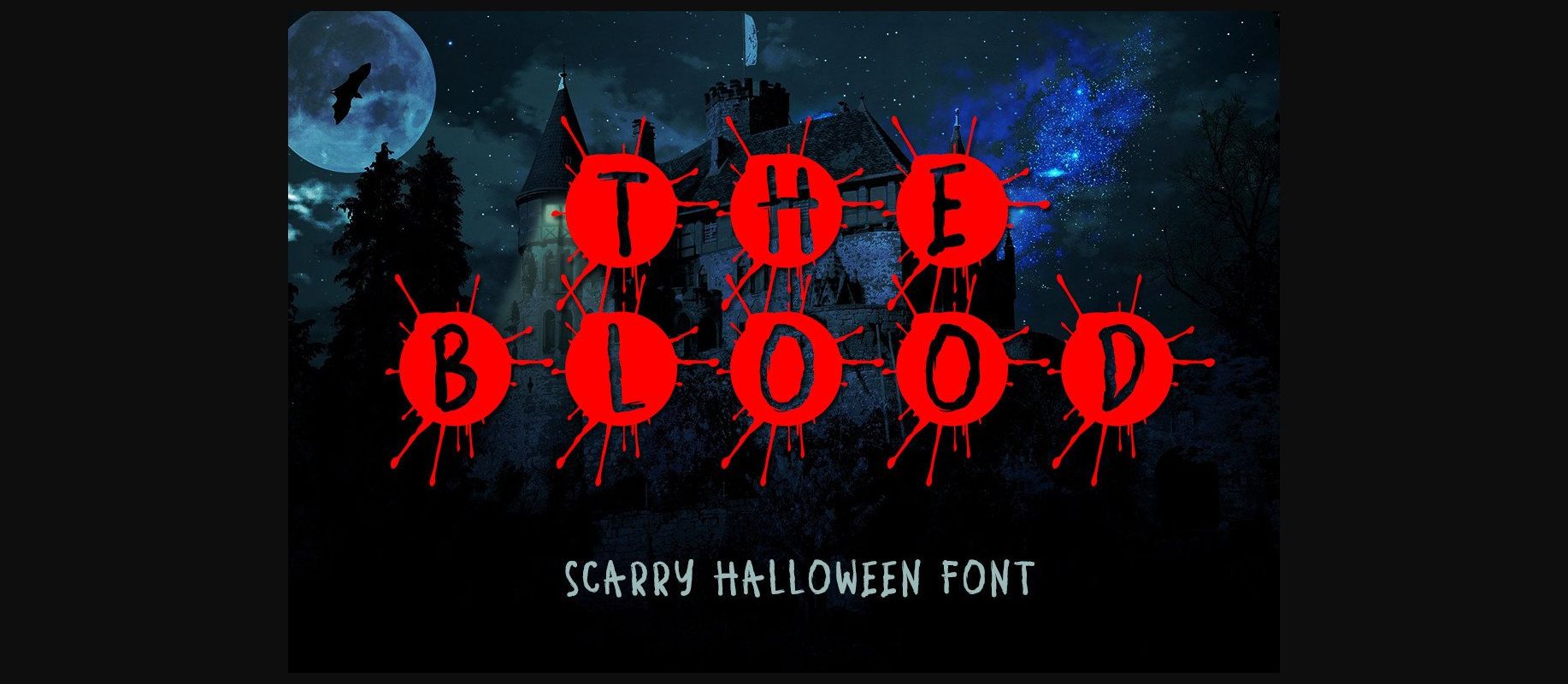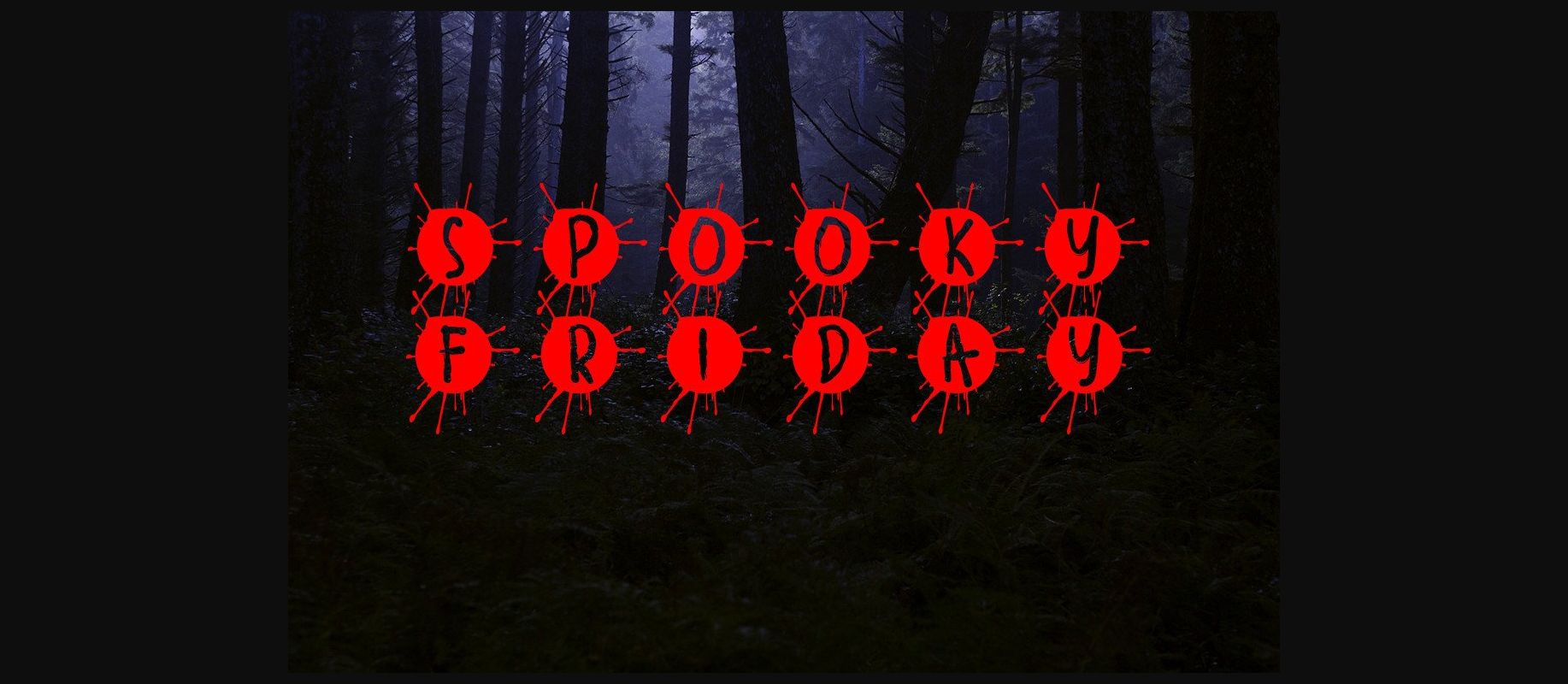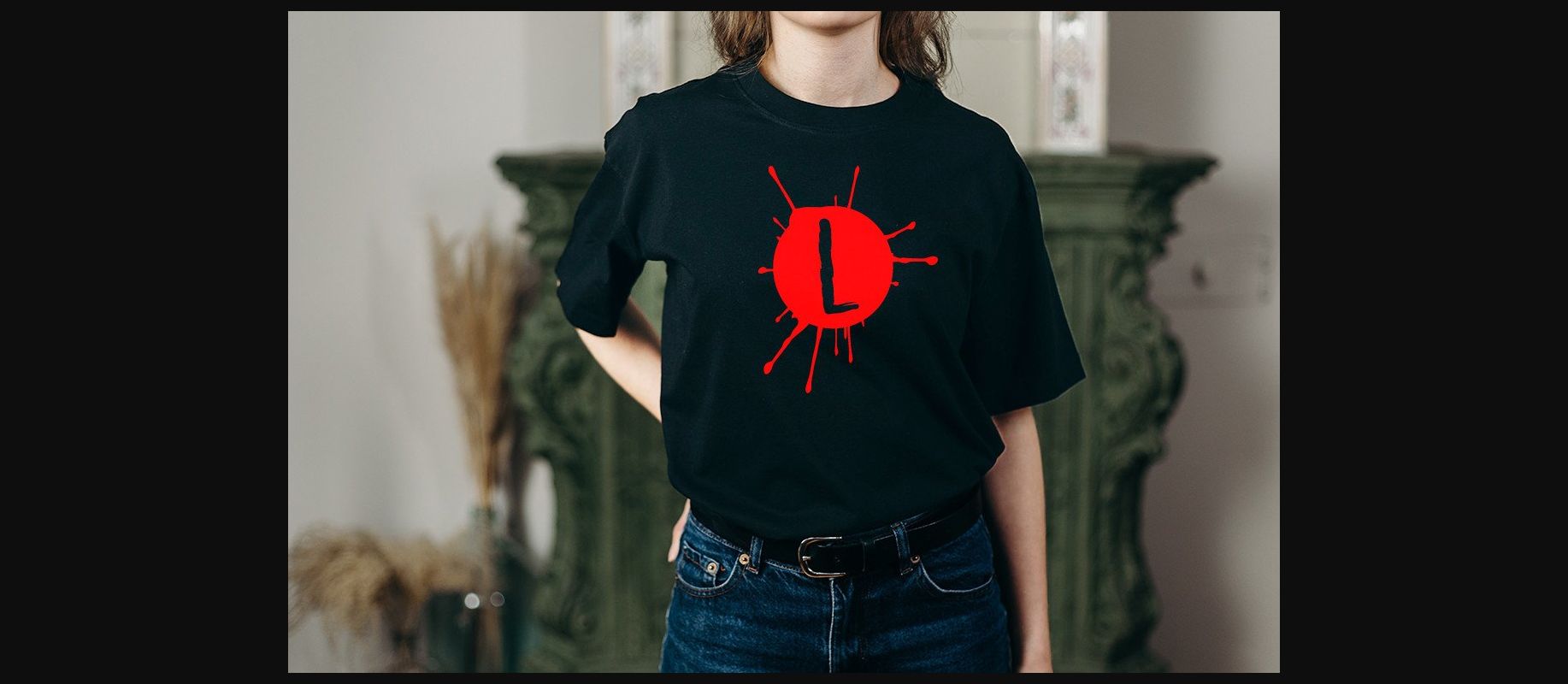
About The Blood Font
The Blood font looks like the design element for bone-chilling projects such as haunted houses and Halloween midnight movies. The additional elements of blood stains make an ambiance of horror. Invitations, postcards, posters, and headings for a Halloween event; this font can be used in every setting.